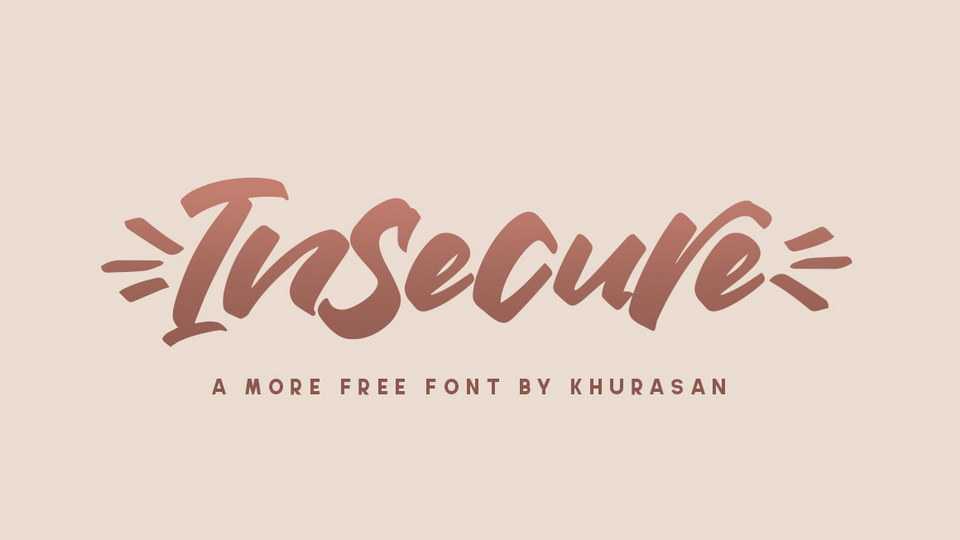
Download Insecure font, a clean and relaxed paint brushed handwritten typeface with a modern feel. Use Insecure font for ads, logos, branding or any other design that requires a cool look